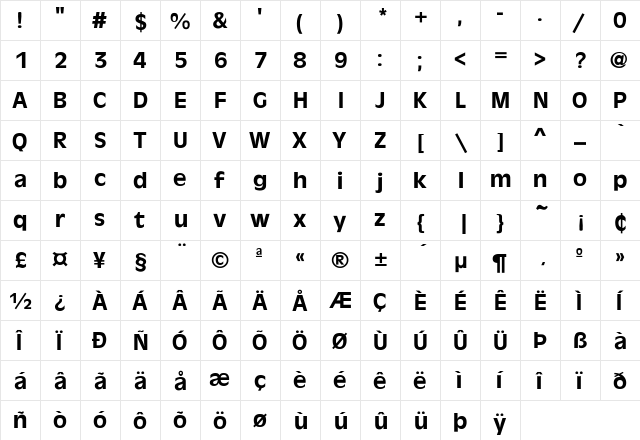
Vineland-Bold Regular
Design Context for Vineland-Bold Typeface
Vineland-Bold offers clean, dependable letterforms without strong stylistic allegiance, making it a practical choice for designers who need flexibility. The heavy weight commands attention and anchors typographic hierarchies.
Pro Tip: Pair Vineland-Bold with a font of contrasting weight or personality to build a more expressive typographic hierarchy.